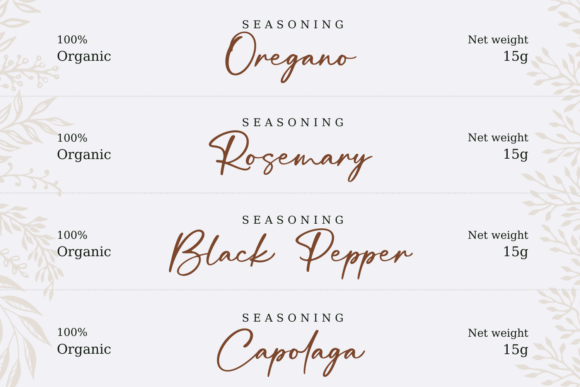
Introducing Balistica Signatura Font: Elevate Your Design with Elegance and Versatility
In the world of typography, a well-crafted font can make all the difference in creating a lasting impression. For designers, marketers, and businesses looking to elevate their brand identity, Balistica Signatura Font is an excellent choice. This elegant script font is designed to add a refined, versatile touch to various design projects, from branding and social media to invitations and packaging.
Key Features of Balistica Signatura Font
- Elegant & Versatile – Perfect for logos, quotes, greeting cards, and more
- Authentic Handwritten Feel – Designed with real pen strokes for a natural, organic look
The Benefits of Using Balistica Signatura Font
Balistica Signatura Font offers a range of benefits that make it an excellent choice for designers and businesses. With its elegant and versatile design, this font can be used to create a wide range of design projects, from logos and branding materials to social media graphics and invitations.
One of the key benefits of Balistica Signatura Font is its authentic handwritten feel. Designed with real pen strokes, this font has a natural, organic look that is sure to capture the attention of your audience. Whether you’re building a powerful brand identity or crafting a standout logo, Balistica Signatura Font gives you the creative edge you need to make a lasting impression.
Design Uses for Balistica Signatura Font
Balistica Signatura Font is a versatile font that can be used for a wide range of design projects. Here are some ideas to get you started:
- Logo Design – Create a professional and elegant logo for your business or brand
- Branding Materials – Use Balistica Signatura Font to create consistent branding across all your marketing materials
- Social Media Graphics – Create eye-catching social media graphics that showcase your brand’s personality
- Invitations and Packaging – Add a touch of elegance to your invitations and packaging with Balistica Signatura Font
- Greeting Cards and Stationery – Create beautiful greeting cards and stationery that showcase your brand’s style
The Style and Characteristics of Balistica Signatura Font
Balistica Signatura Font is an elegant script font that features a range of characteristics that make it unique and versatile. Here are some of the key style and characteristics of this font:
- Script Style – Balistica Signatura Font features a beautiful script style that is perfect for creating elegant and sophisticated designs
- Handwritten Feel – This font has a natural, handwritten feel that is sure to add a personal touch to your designs
- Pen Strokes – Balistica Signatura Font is designed with real pen strokes, giving it a authentic and organic look
- Versatile – This font is versatile and can be used for a wide range of design projects
In conclusion, Balistica Signatura Font is an elegant script font that can add a refined, versatile touch to your design projects. With its authentic handwritten feel, versatility, and compatibility with all major design programs, this font is perfect for designers, marketers, and businesses looking to elevate their brand identity. Whether you’re building a powerful brand identity or crafting a standout logo, Balistica Signatura Font gives you the creative edge you need to make a lasting impression.